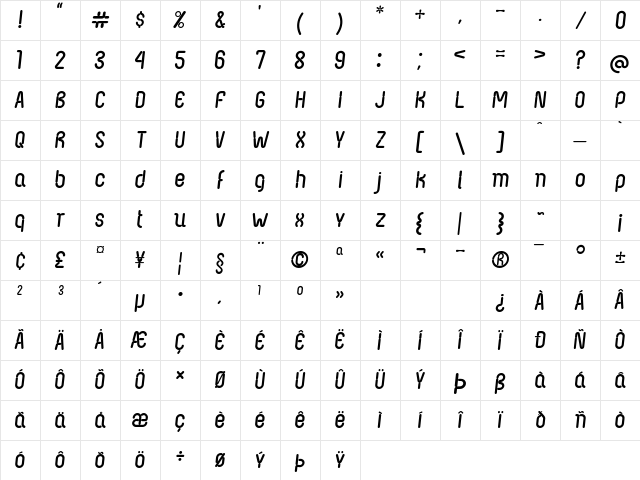
Complete Nexus FPS Italic glyph index. Displaying only characters natively supported by Nexus FPS Italic font.
Nexus FPS is a composed and adaptable typeface that performs quietly and consistently across a wide range of design contexts. The slanted form adds forward momentum and visual energy.